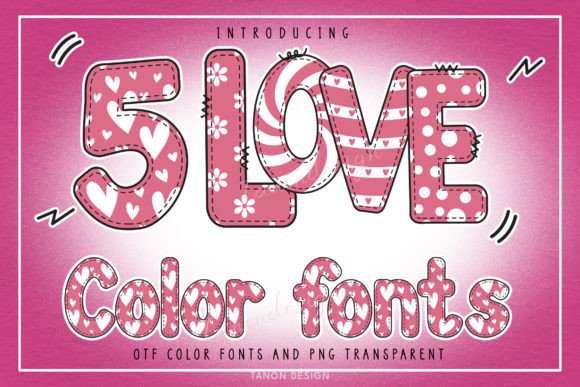
Introducing 5 Love Font and 5 Love Color Fonts: Elevate Your Designs with Style
Are you looking for a way to add a touch of love and elegance to your designs? Look no further than the 5 Love Font and 5 Love Color Fonts. These versatile and stylish fonts are perfect for a wide range of projects, from t-shirt designs and mug designs to digital designs, crafts, cards, and more. In this article, we’ll explore the features and benefits of these amazing fonts and show you how to make the most of them.
What are 5 Love Font and 5 Love Color Fonts?
The 5 Love Font and 5 Love Color Fonts are a collection of five stunning fonts that are designed to add a touch of love and sophistication to your designs. The package includes five OTF color fonts and all PNG transparent files, which are perfect for use in a variety of design programs. The fonts are available in both black and color versions, making it easy to choose the one that best suits your needs.
Key Features of 5 Love Font and 5 Love Color Fonts
What Can I Use 5 Love Font and 5 Love Color Fonts For?
The 5 Love Font and 5 Love Color Fonts are incredibly versatile and can be used for a wide range of projects, including:
- T-Shirt Designs: Create stunning t-shirt designs that are perfect for personal use or for sale.
- Mug Designs: Add a touch of love and elegance to your mug designs.
- Digital Designs: Use the fonts in digital designs, such as social media graphics, blog posts, and more.
- Crafts: The fonts are perfect for use in craft projects, such as card making, scrapbooking, and more.
- Cards: Create beautiful cards for special occasions, such as birthdays, weddings, and more.
Tips and Tricks
Here are some tips and tricks to help you get the most out of the 5 Love Font and 5 Love Color Fonts:
- Experiment with Different Colors: Experiment with different colors and combinations to create unique and eye-catching designs.
- Use in Combination with Other Fonts: Use the 5 Love Font and 5 Love Color Fonts in combination with other fonts to create stunning contrast and visual interest.
- Pay Attention to Font Size: Pay attention to font size and adjust it as needed to ensure your design looks its best.
The 5 Love Font and 5 Love Color Fonts are a must-have for anyone looking to add a touch of love and elegance to their designs. With their versatility, style, and compatibility with a range of design programs, these fonts are perfect for use in a wide range of projects. Whether you’re a designer, crafter, or DIY enthusiast, these fonts are sure to become a favorite in your collection.